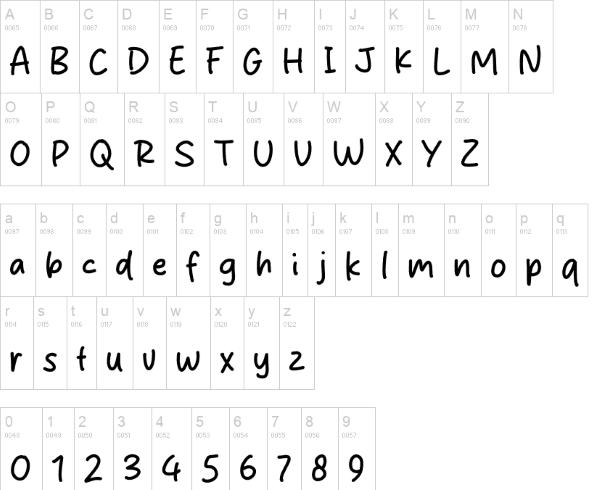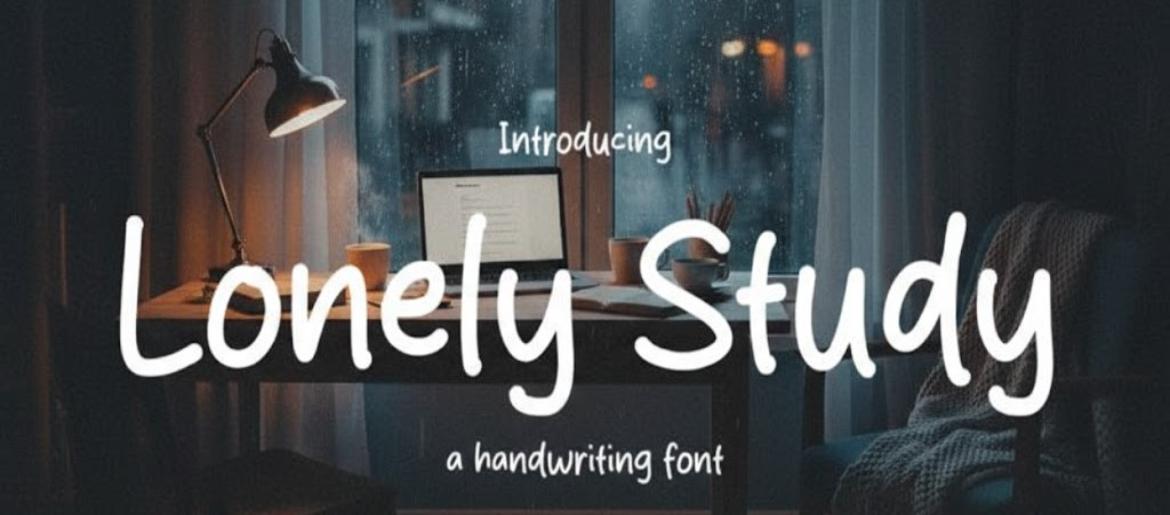
Lonely Study Font
Lonely Study Font is a clean and expressive typeface featuring both uppercase and lowercase letters, along with numbers and punctuation. Its simple, balanced design makes it suitable for study materials, notes, planners, worksheets, and digital content, offering clear readability while maintaining a calm, thoughtful, and modern typographic appearance.
➤ Style: Handwritten